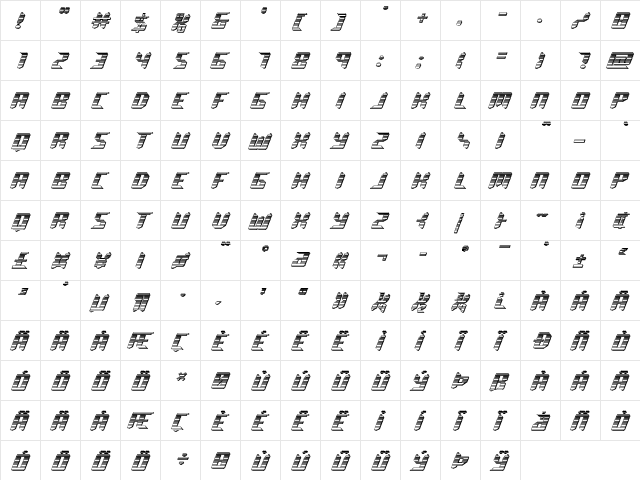
Robo-Clone Chrome Regular
Design Context for Robo-Clone Chrome Typeface
Robo-Clone Chrome is a composed and adaptable typeface that performs quietly and consistently across a wide range of design contexts.